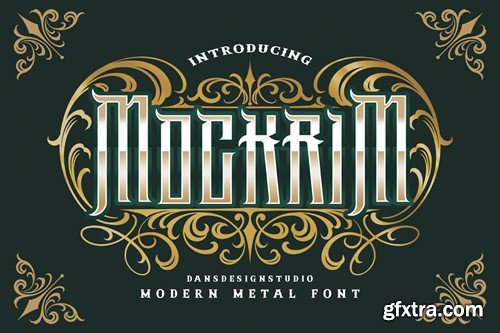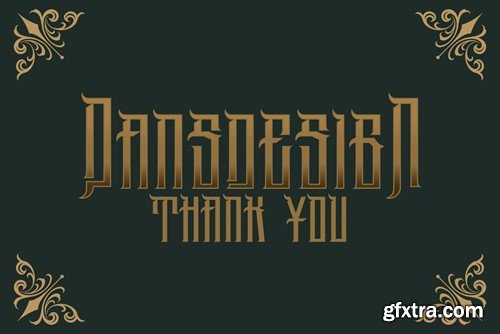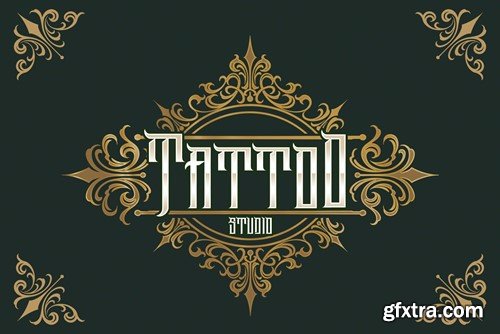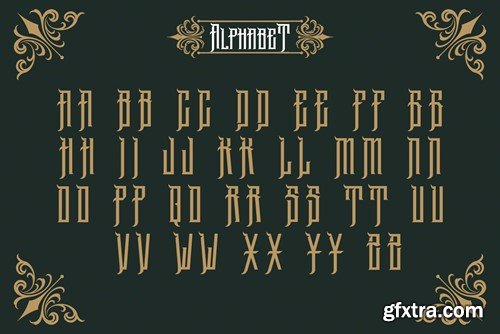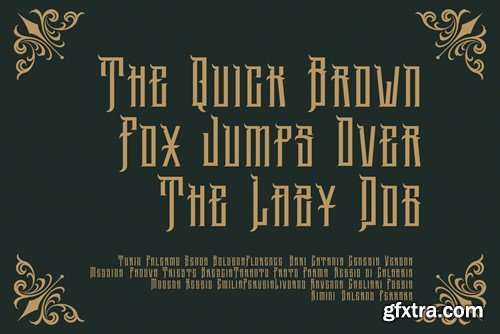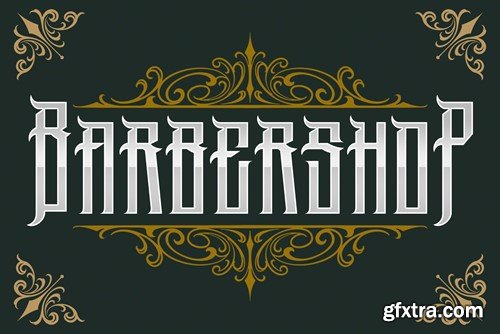
Mockrim Modern Blackletter Font
Mockrim Modern Blackletter Font Mockrim a distinct, highly detailed, and chic Blackletter font. It would make a great choice for exquisite retro-urban designs, tattoo business branding, logos, vintage designs, and more. Mockrim (OTF/TTF) Mockrim Italic (OTF/TTF) Featured : Accents (Multilingual characters) PUA encoded Numerals and Punctuation (OpenType Standard) Thanks for downloading